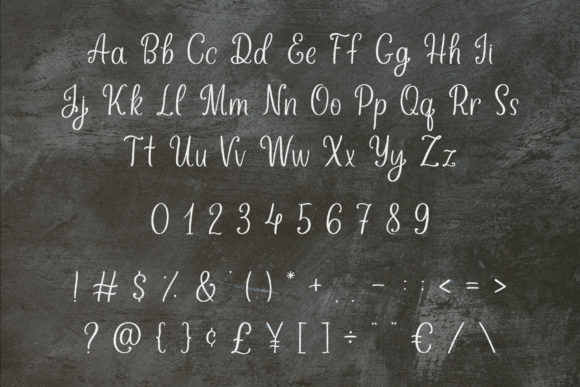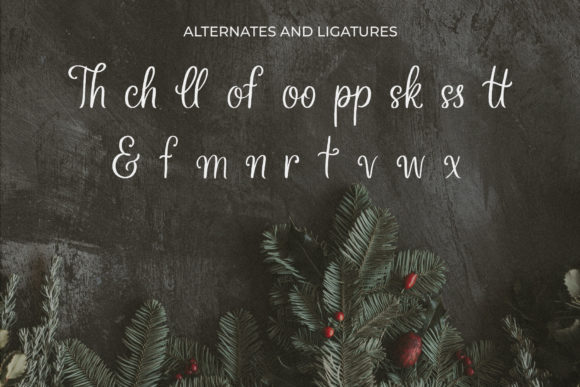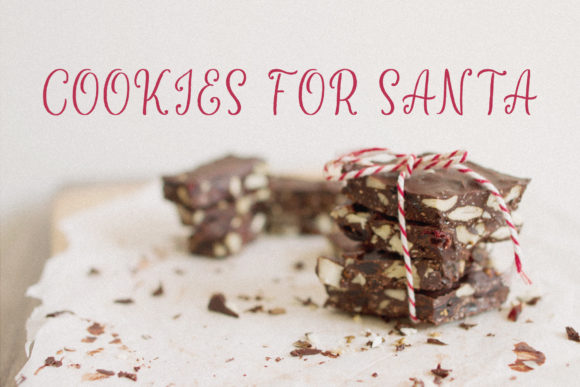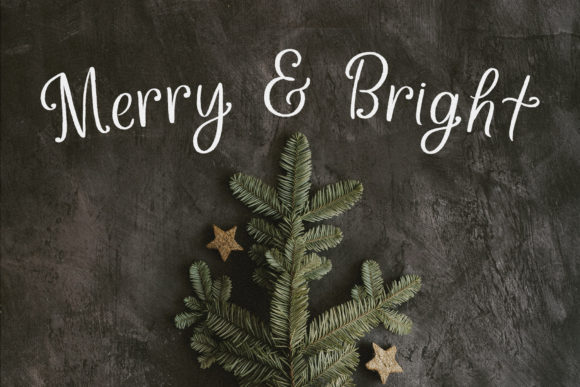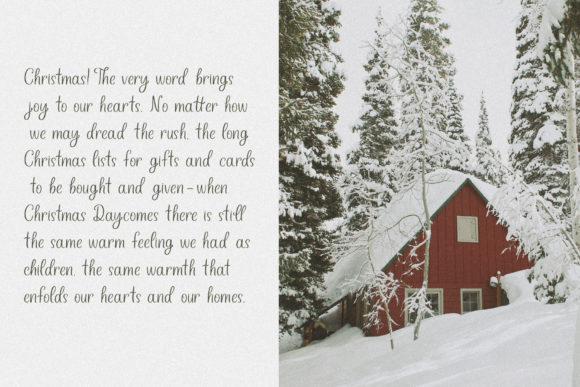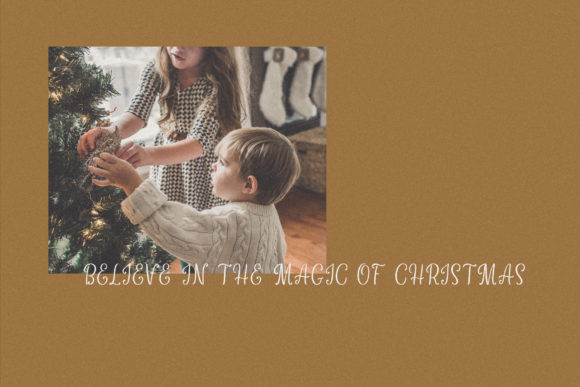
Introduction to Holiday Spice Font
As the holiday season approaches, many of us find ourselves reminiscing about Christmases past and brainstorming creative ways to make this year’s festivities even more special. For designers, one of the most magical moments comes when discovering a unique font that captures the essence of the season.
Enter the enchanting Holiday Spice Font, a delightful Christmas script that brings warmth and personality to any project. With its hand-drawn touch and sweet edges, this font is perfect for creating high-quality designs that stand out from the crowd. Whether you’re working on a DIY project, crafting a gift tag, or designing a festive sign, the Holiday Spice Font is sure to add a touch of magic to your work.
What sets this font apart is its versatility and value as a free download. With a transparent background, designers can easily incorporate it into their designs, making it an invaluable resource for any creative project.
Key Features of Holiday Spice Font
- Unique blend of festive and elegant design elements, perfect for creative projects and holiday-themed designs.
- Includes a range of customizable elements, including ornaments, borders, and icons, to enhance your holiday-themed designs.
- Supports a wide range of languages, making it a versatile design resource for global creative projects.
Honest Review: Holiday Spice Font
As a designer, I’m always on the lookout for unique and high-quality design resources to elevate my creative projects. The Holiday Spice Font caught my eye with its festive and playful vibe, perfect for adding a touch of holiday cheer to any design.
Here are some things that work well: ✨
- High-quality design: The font is crisp and clear, making it perfect for both digital and print projects.
However, there are some limitations to consider: ⚠️
- Limited character set: The font only includes a limited set of characters, which may not be suitable for complex designs or languages.
- Not suitable for long blocks of text: The font is best used for short phrases or titles, as it can become difficult to read when used for large amounts of text.
Overall, I’d give the Holiday Spice Font 4 out of 5 stars. It’s a great design resource for those looking to add a touch of holiday cheer to their projects, but may not be suitable for all types of designs.
When using the Holiday Spice Font, be sure to pair it with a transparent background for a seamless look. This will allow your design to stand out and give it a more professional appearance. You can also use it in conjunction with other design resources, such as graphics and images, to create a cohesive and high-quality design.
The Holiday Spice Font is perfect for various creative projects, including holiday cards, gift tags, and social media posts. It’s also a great resource for businesses and individuals looking to add a festive touch to their branding and marketing materials.